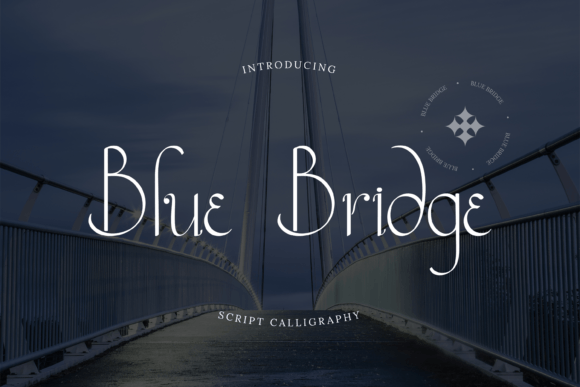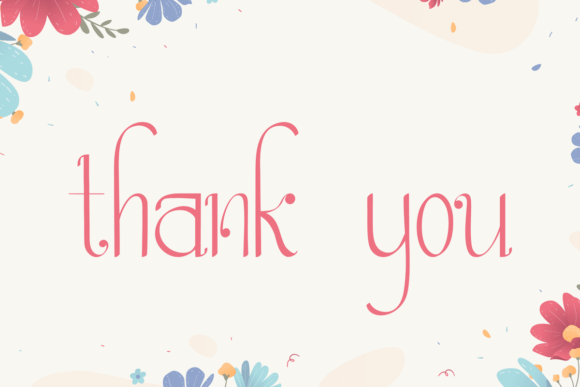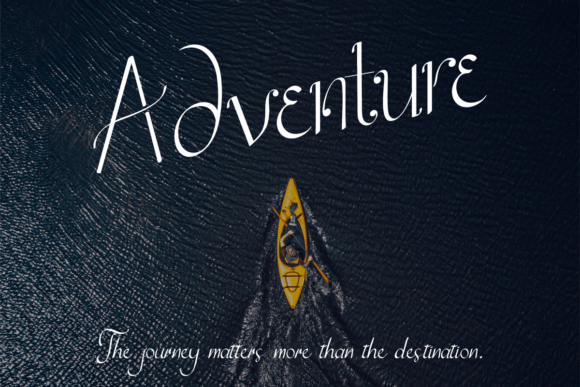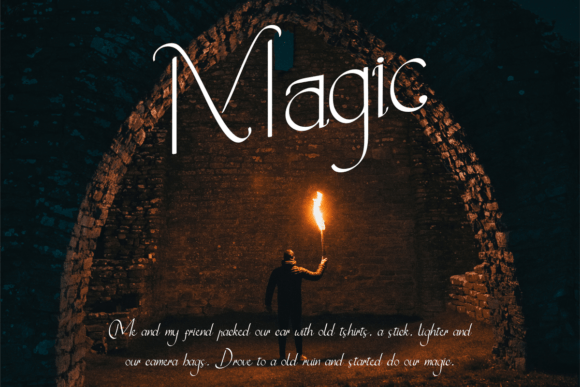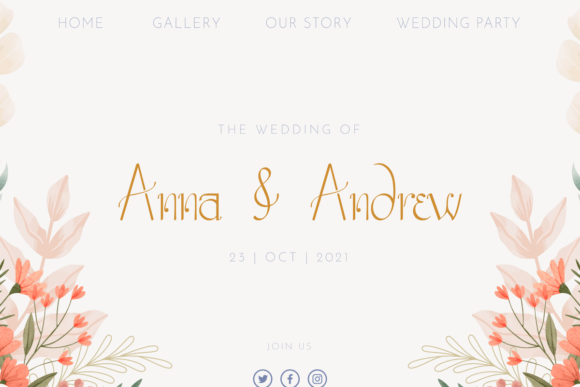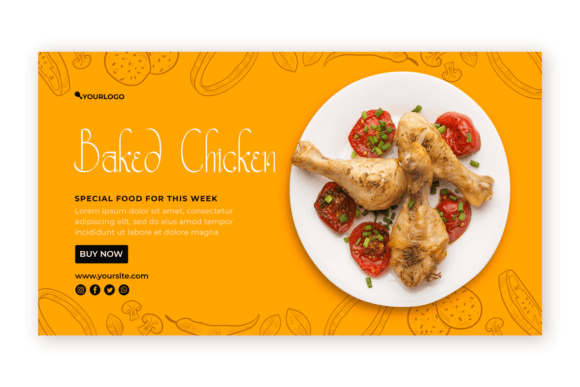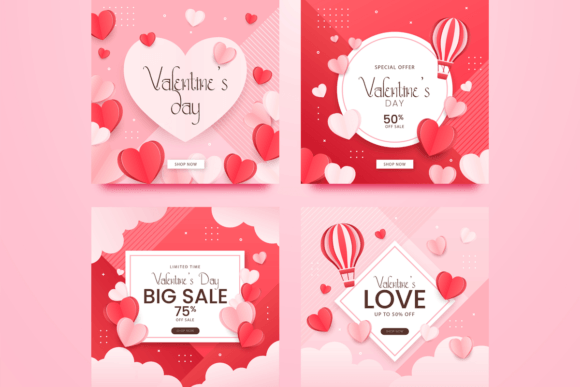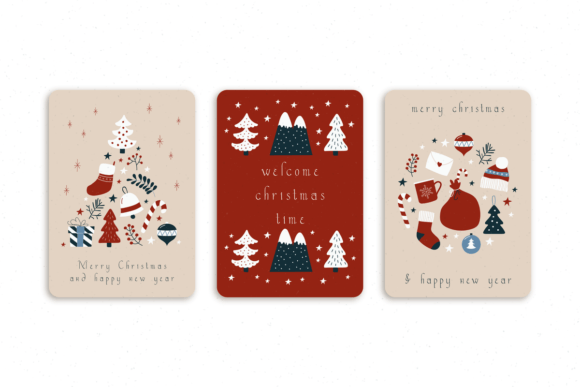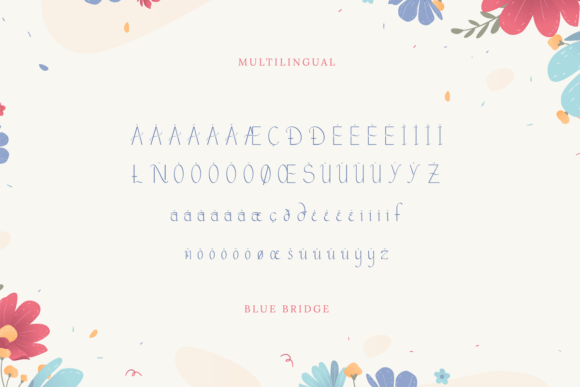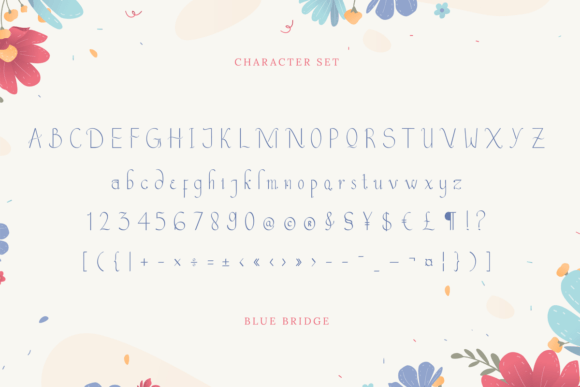
Blue Bridge Font
About Blue Bridge Font
Introducing Blue Bridge, a modern calligraphy script font designed to bring a touch of sophistication and elegance to your creative projects. Whether you’re working on branding, logos, wedding designs, social media posts, advertisements, product packaging, product designs, labels, photography, watermarks, invitations, stationery, or any project that demands a refined handwriting taste, Blue Bridge is the perfect font for the job.
The graceful and flowing calligraphy style of Blue Bridge adds a sense of beauty and sophistication to your designs. Its versatility makes it well-suited for a variety of applications, allowing you to infuse a handwritten aesthetic into different creative projects.
For branding projects and logos, Blue Bridge becomes a signature element that sets your brand apart. The calligraphic strokes convey a sense of elegance and uniqueness, establishing a memorable visual identity.
Wedding designs benefit from the romantic and refined qualities of Blue Bridge. Whether used in invitations, place cards, or other wedding stationery, the font adds a touch of sophistication to the celebration.
In social media posts, Blue Bridge enhances the visual appeal and elegance of your content. Its calligraphy script brings a personalized and stylish touch, making your posts stand out in the crowded digital landscape.
Product packaging and labels find a perfect companion in Blue Bridge. The font’s refined handwriting taste adds a layer of sophistication to products, making them more appealing to consumers.
Photography and watermarks come to life with the elegant strokes of Blue Bridge. The calligraphy script complements images, creating a harmonious balance between the visual and textual elements.
Invitations and stationery benefit from the timeless beauty of Blue Bridge. The font’s calligraphy style adds a touch of class to every word, creating a lasting impression on recipients.
In summary, Blue Bridge is more than just a font; it’s a modern calligraphy script that elevates the beauty of your designs. Embrace its refined handwriting taste to bring sophistication and elegance to your branding, social media, packaging, and various creative projects. Choose Blue Bridge for a touch of timeless beauty in every stroke.